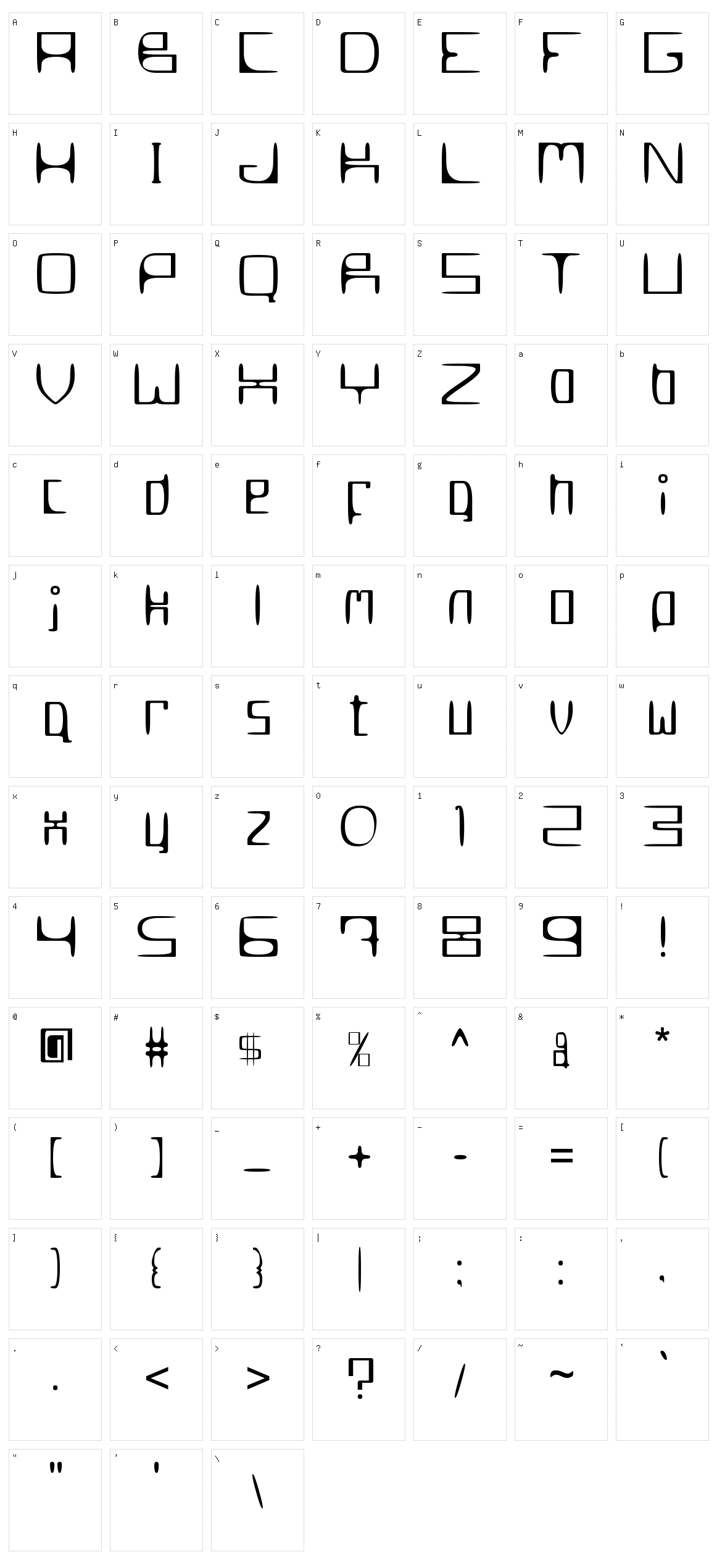
MetroSlum
Designed by: The Space Wanderer
By Eric Wiryanata. December 2006.
this font is design is a modification of my previous font called Djakarta,(Djakarta is the capital of Indonesia)
this is the alter ego MetroSlum
Note#2: This typeface is ideal for logos and general design.
It isn't very suitable to be used with word-processors as it lacks some symbols and letters.